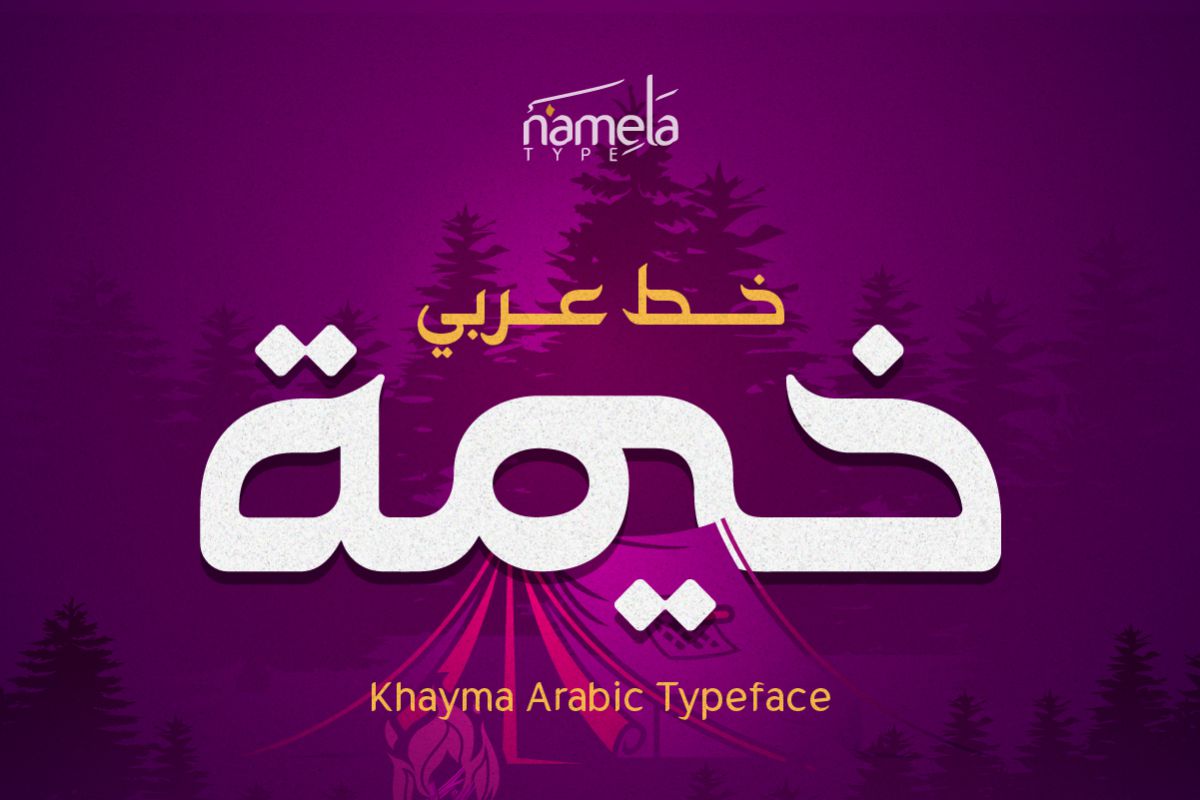
Khayma Regular
Khayma Arabic Font - A Modern Kufic Display Typeface for Branding & Corporate Some typefaces gain their strength not from complexity, but from clarity and intention. Khayma Arabic is a perfect example—built with a focused design approach that transforms traditional inspiration into a bold, contemporary display voice. Created by Namelatype, Khayma Arabic is a display typeface rooted in the legacy of Kufic calligraphy, reinterpreted for modern visual communication. It is designed to deliver clari